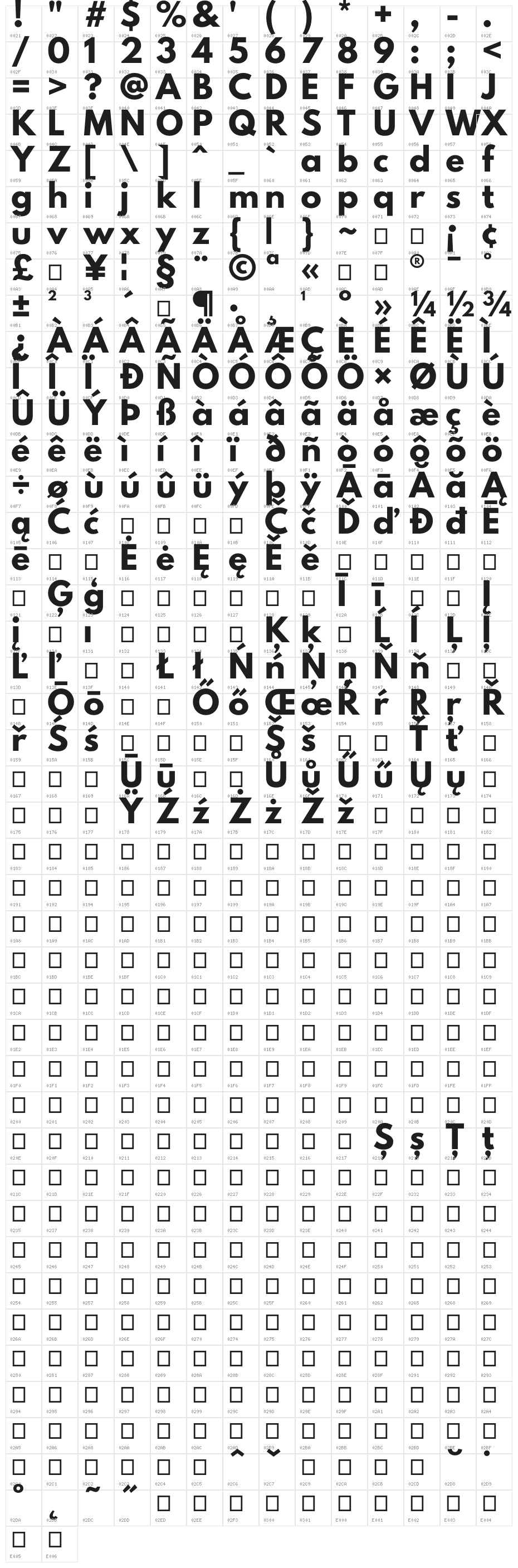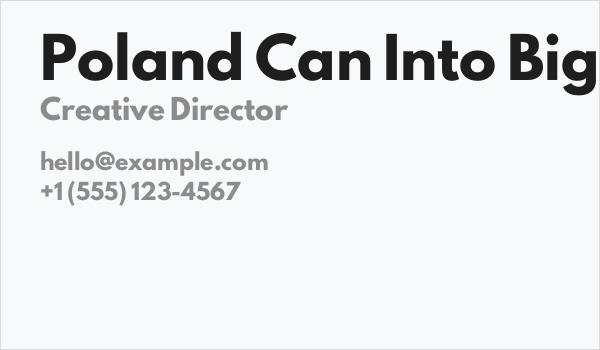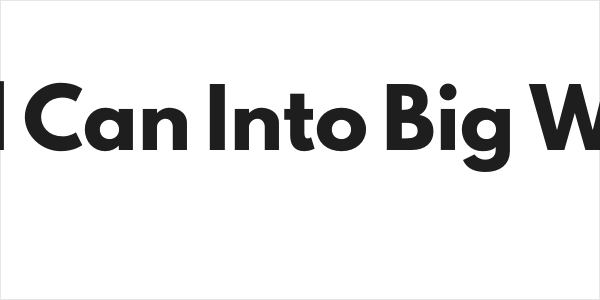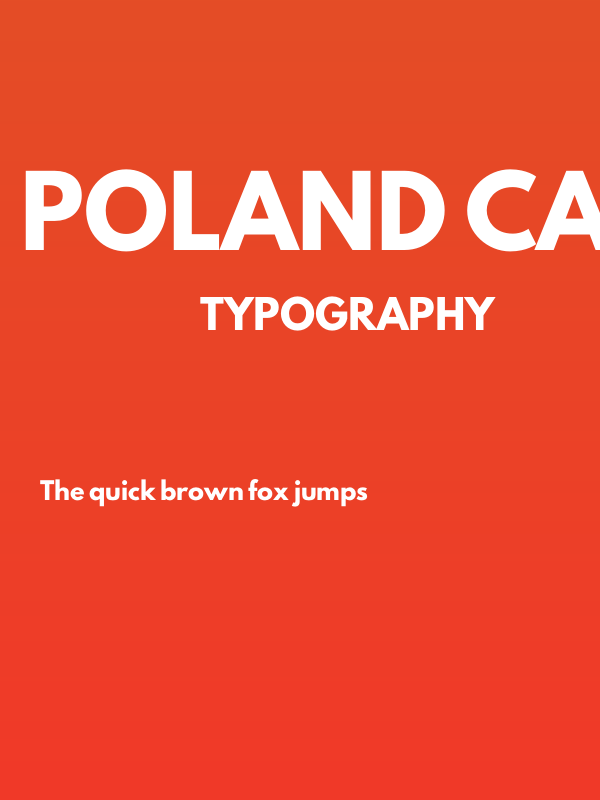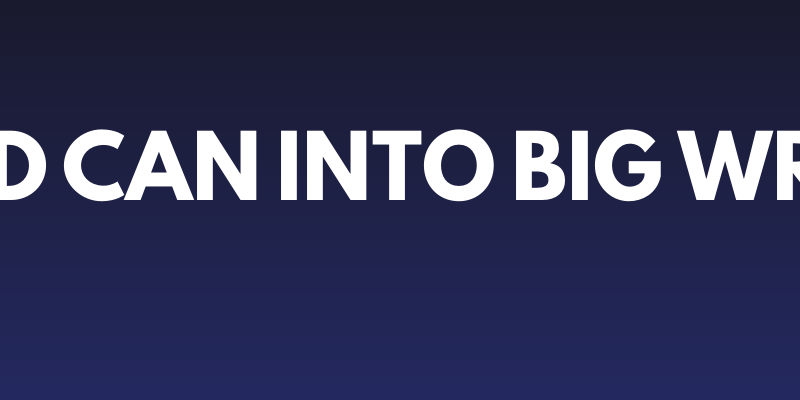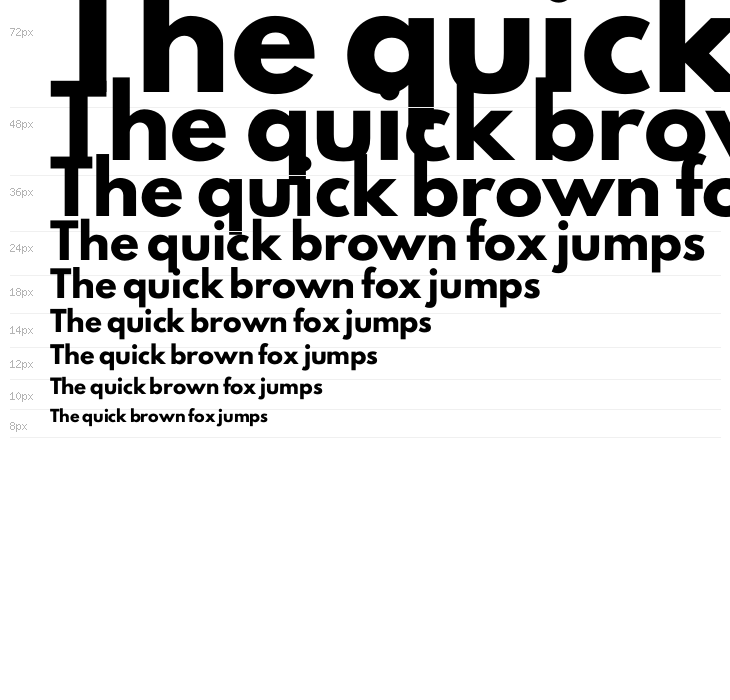
Poland Can Into Big Writings Font
Poland Can Into Big Writings Description
This font features a bold and clean sans-serif style, characterized by its strong geometric shapes and uniform stroke widths. The uppercase and lowercase letters are well-balanced, with a modern aesthetic that emphasizes clarity and readability. The numerals are consistent with the overall design, maintaining the same boldness and geometric precision. Special characters are included, matching the font's robust and straightforward style. This font is versatile, suitable for a variety of design applications where a contemporary and assertive look is desired.
Proposed ProjectsIdeal for branding, advertising, headlines, posters, and digital media where a strong, modern presence is needed.